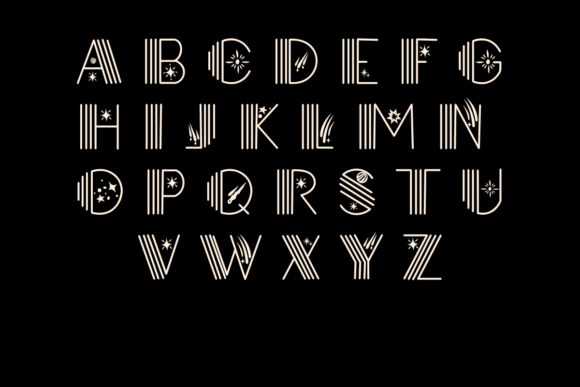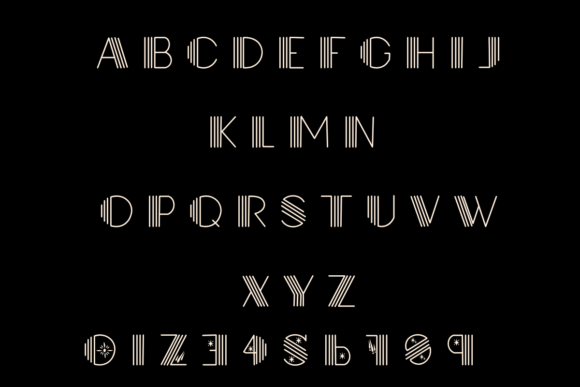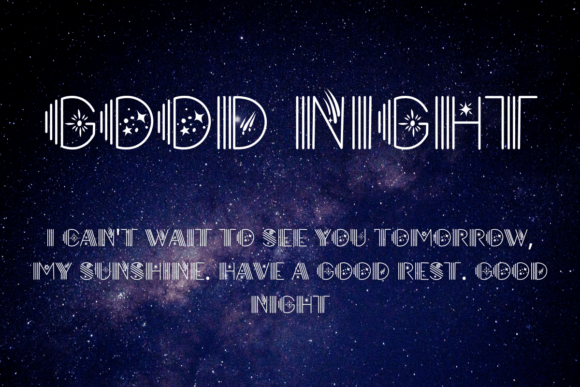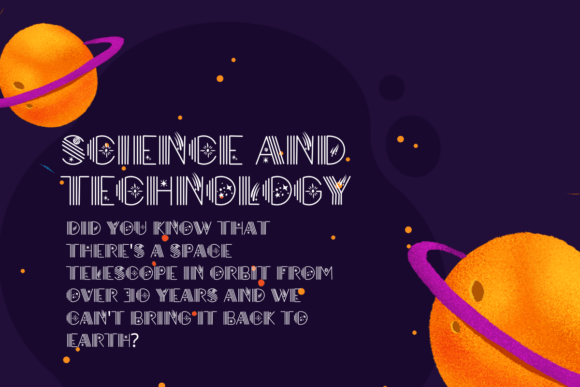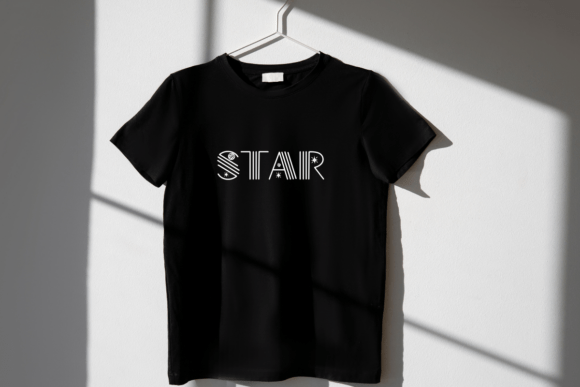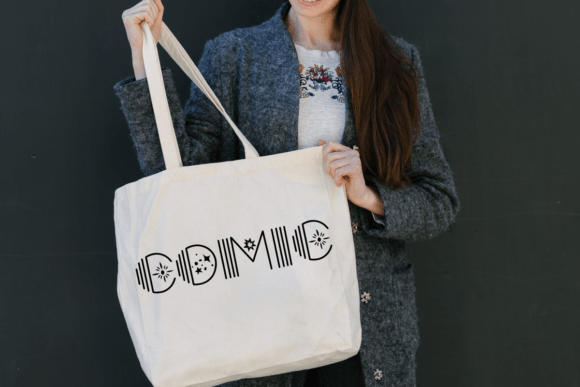
Get Ready to Blast Off into Creativity with Galaxy Font
Do you remember the moment when you first discovered a font that made your designs stand out? For many of us, it’s that ‘aha’ moment when we stumble upon the perfect combination of style and functionality. And, for designers and creatives, finding the right font can be a game-changer. It’s that one element that elevates your work from good to great.
Galaxy Font is one such font that has captured the hearts of designers and crafty individuals alike. This decorative font is perfect for creating unique and eye-catching designs for various projects, from taking notes and writing diaries to making greeting cards and banners. Its versatility makes it a valuable addition to any designer’s toolkit, offering endless possibilities for creative expression.
Galaxy Font Key Features
- Font Family: Galaxy Font is a sans-serif font family designed for digital use, available in multiple weights and styles.
- Unique Characteristics: Galaxy Font features a unique blend of modern and futuristic design elements, including rounded corners, subtle curves, and a distinctive x-height.
Galaxy Font Review
Overall, I think Galaxy Font has some amazing qualities, but it’s not without its flaws. Let’s dive in and see what works and what doesn’t.
- Galaxy Font’s most striking feature is its unique blend of futuristic and cosmic elements. The result is a font that’s truly out of this world.
- The font’s bold and playful nature makes it perfect for projects that need a bit of whimsy and excitement.
- Galaxy Font’s versatility shines through in its many variations, from bold and condensed to thin and elegant.
- One major issue I have with Galaxy Font is its lack of consistency across different font sizes and styles. At times, the font can look a bit rough around the edges.
- The font’s complexity can also make it difficult to pair with other fonts, which may limit its usability in certain projects.
Overall, I’d say Galaxy Font is a solid choice for projects that need a bold and eye-catching font. While it’s not perfect, its unique qualities and versatility make it a great option for designers looking to add some excitement to their work.
Tips for Getting the Most Out of Galaxy Font
Use Galaxy Font to create a futuristic and otherworldly feel in your designs.
Combine Galaxy Font with neon colors and bold graphics for a striking effect.
Experiment with different font sizes and styles to add depth and visual interest to your designs.
Galaxy Font is perfect for:
Space-themed designs and logos.
Science fiction and futuristic graphics.
Advertising and marketing materials that need a bold and eye-catching look.